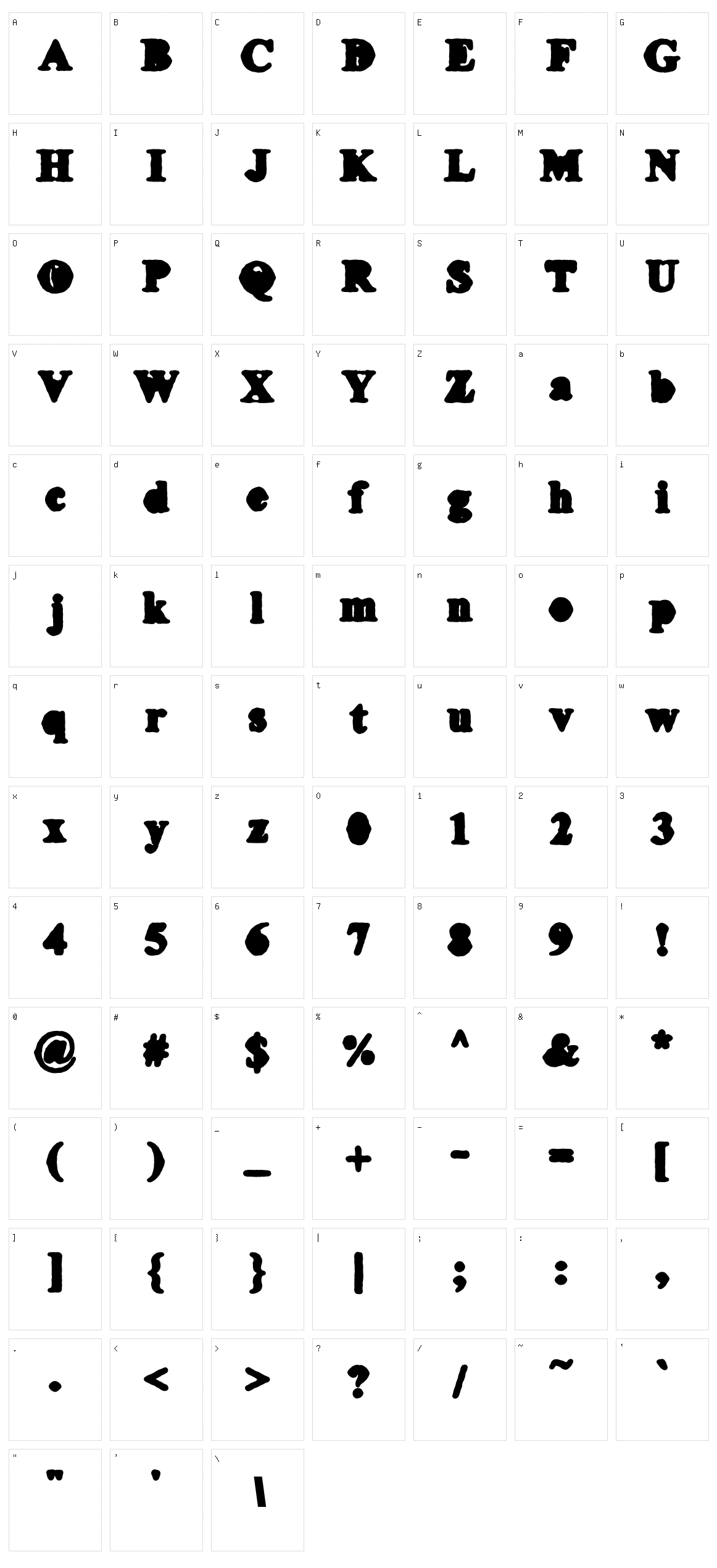
The free font Secret Files is carefully designed by Jayde Garrow, showcasing a thoughtful balance of creativity and usability and falls under the Eroded font style. When you download the ZIP file, it contains only 15.16 KB of font files, making it lightweight and quick to download. Please review the license details below to understand permitted usage and distribution rights. If license information is not available, we recommend using this font for personal projects only or contacting the author directly for commercial usage permissions.